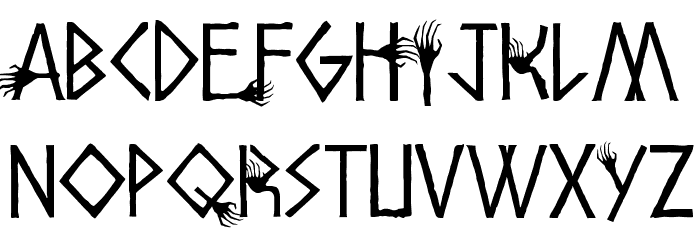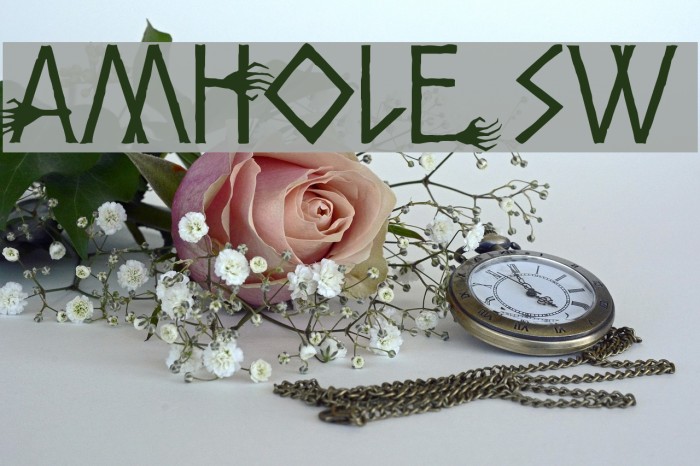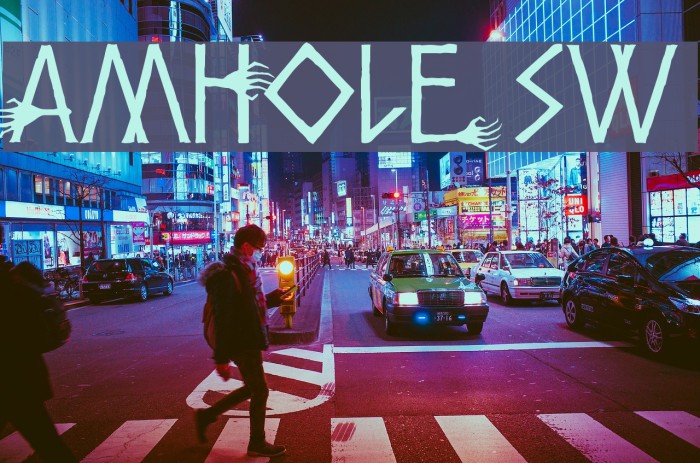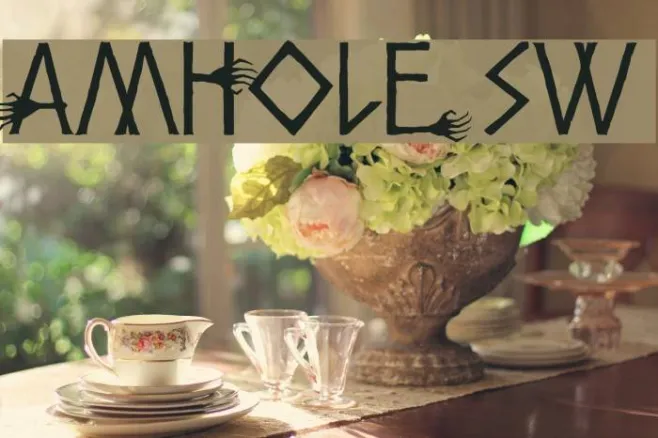
Amhole SW Font
This font features a unique and eerie design, incorporating elements that resemble skeletal hands extending from the letters. The uppercase characters are bold and angular, with sharp edges that create a sense of unease and intrigue. The lowercase letters maintain this theme, offering a consistent and cohesive look. The numbers and special characters are similarly styled, ensuring uniformity across all text. This font is perfect for projects that require a spooky or horror-themed aesthetic, such as Halloween invitations, horror movie posters, or themed event flyers.
A spooky, hand-themed font with bold, angular letters perfect for horror designs.
- Font: Amhole SW
- Proposed Projects: Ideal for Halloween invitations, horror movie posters, themed event flyers, and spooky branding.